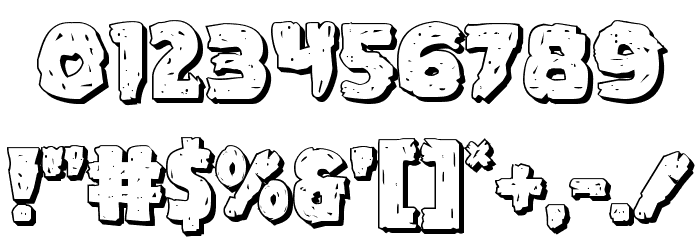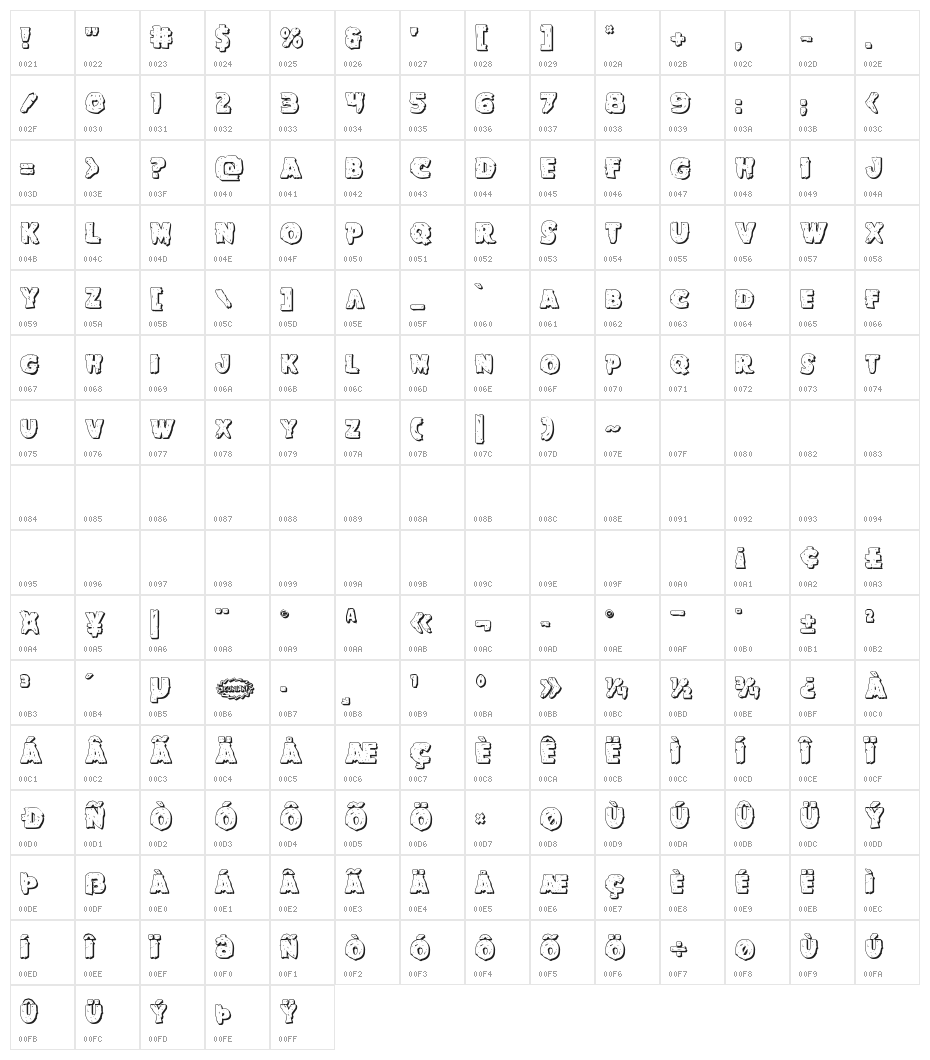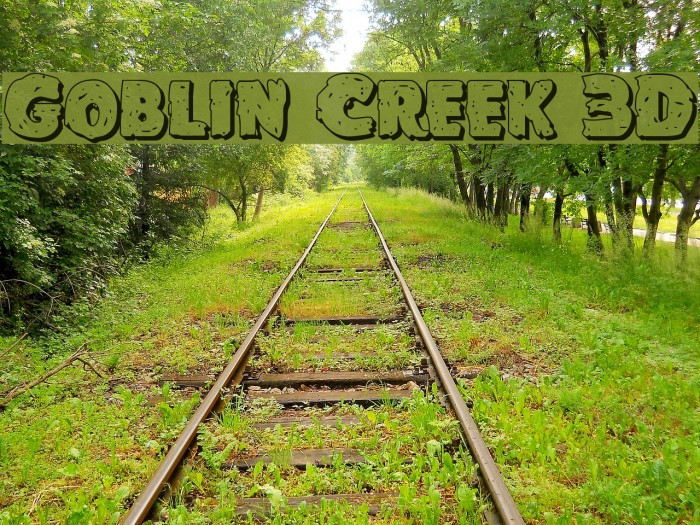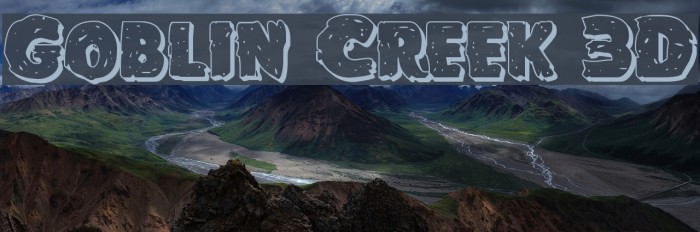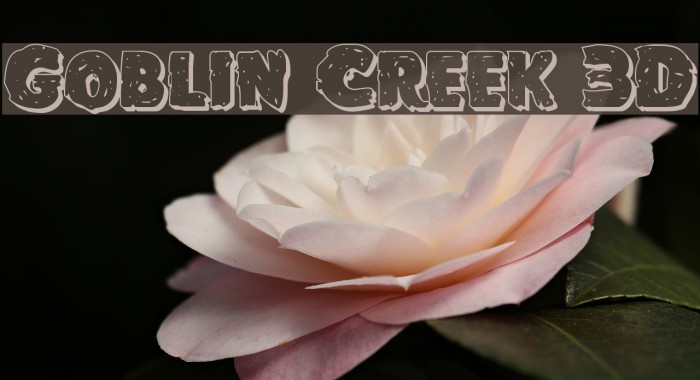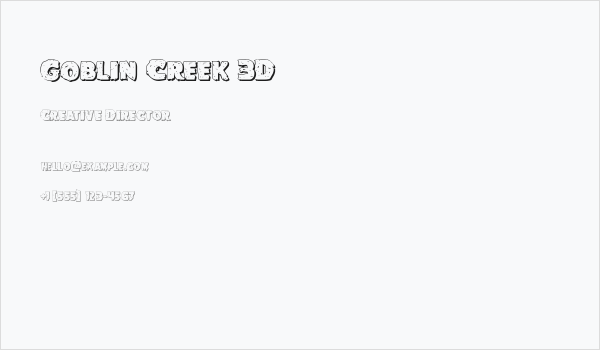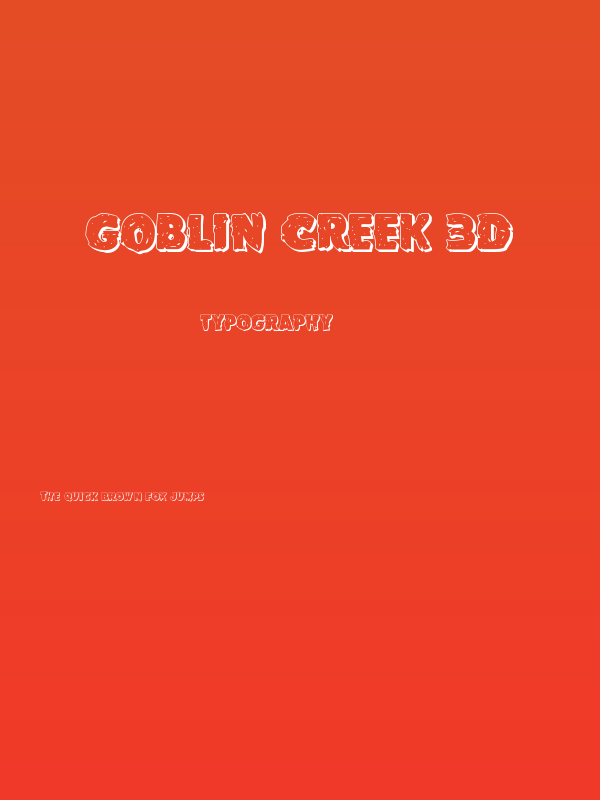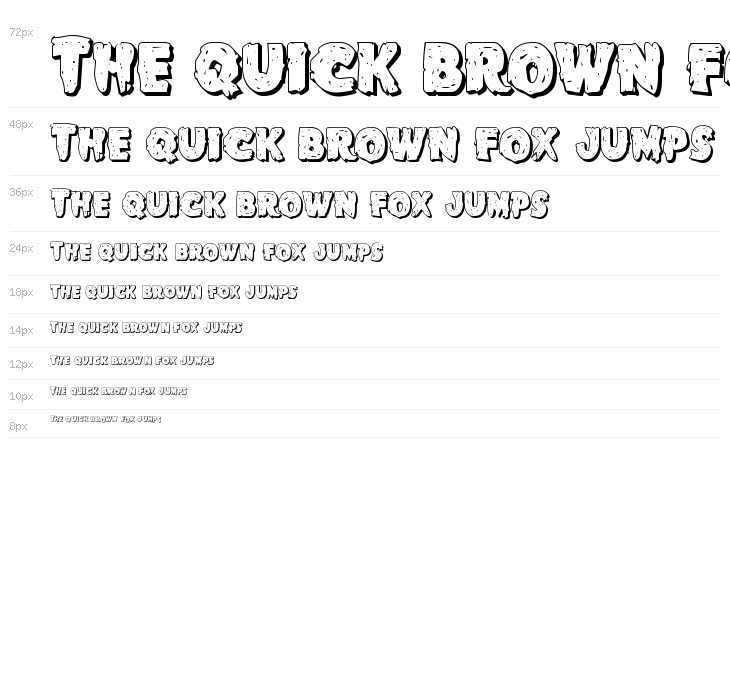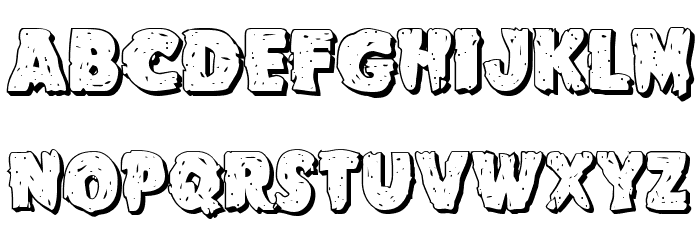
Goblin Creek 3D Font
Goblin Creek 3D Description
This font features a bold, playful design with a 3D effect that gives it a unique, eye-catching appearance. The characters are chunky and have a slightly irregular outline, adding a whimsical and fun element to the overall look. The font is filled with small, scattered dots and marks, enhancing its quirky and dynamic style. It is well-suited for creative projects that require a touch of humor and personality. The uppercase and lowercase letters maintain a consistent style, and the numerals and special characters are equally bold and distinctive, making it versatile for various design needs.
| Overall Style | Playful, Whimsical, Fun |
| Proposed Projects | Ideal for children's book covers, playful posters, comic titles, and creative branding projects. |